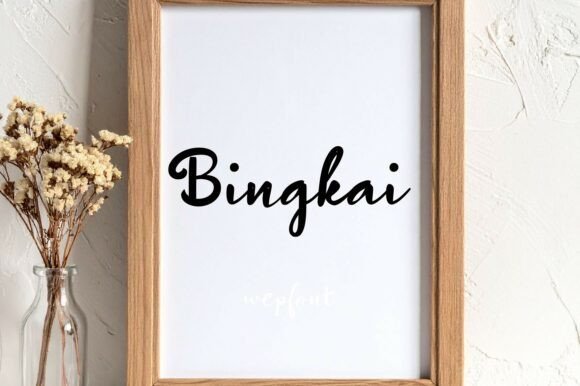
Introduction to Bingkai Font
Introducing Bingkai, an exquisitely graceful script typeface, melding elegant charm and heartfelt passion.
Bingkai paints a canvas of artistry, with each stroke expressing an intimate touch of human craftsmanship The soft brush-like traces and gentle curves of this typeface evoke a strong sense of artistic mastery, merging aesthetics with inimitable warmth that makes your designs stand out with impeccable elegance.
Key Features of Bingkai Font
Why Choose Bingkai Font?